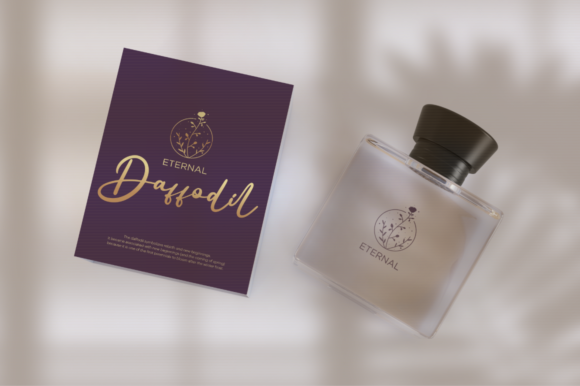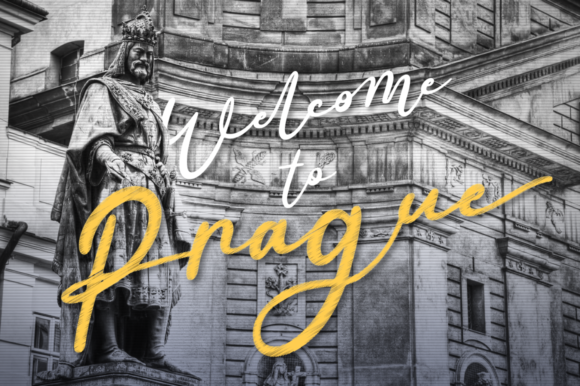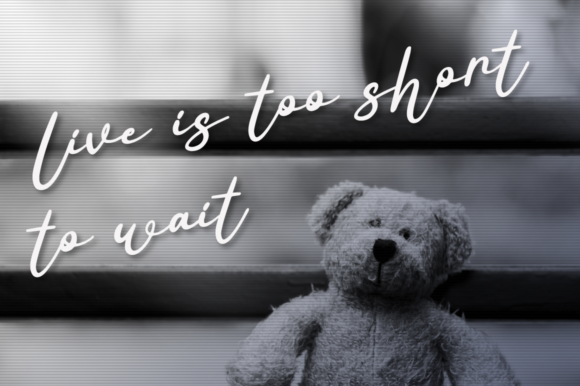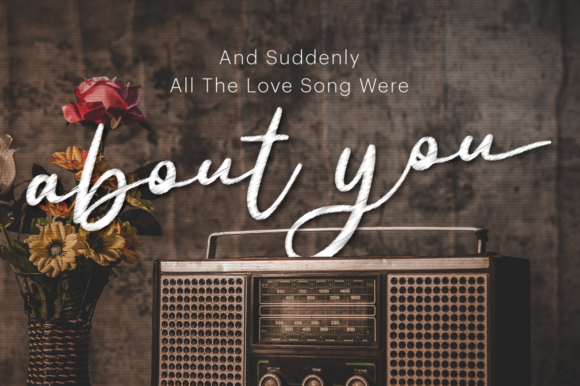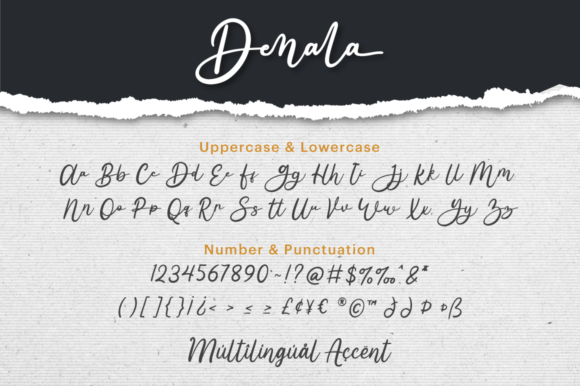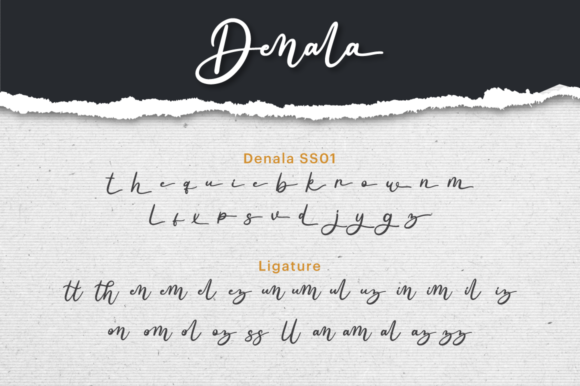
Introduction to Denala Font
Have you ever found yourself staring at a blank canvas, eager to bring a creative project to life, only to be held back by the perfect font? That’s where the Denala Font comes in – a beautiful and refined script font that’s sure to elevate your designs and leave a lasting impression. With its classy, elegant, and modern look, Denala Font is the perfect design resource for any project, from logos and branding to invitations and wedding designs.
Whether you’re a seasoned designer or just starting out, the Denala Font is a valuable addition to your toolkit. Its high-quality design makes it perfect for printing on transparent backgrounds, and with a free download available, you can start using it in your next creative project right away. So why settle for a generic font when you can make a statement with the Denala Font?
Get ready to take your designs to the next level with the Denala Font – a game-changing design resource that’s sure to inspire your next creative project.
Key Features of Denala Font
- High-quality design for creative projects: Denala Font is designed to provide a unique and stylish look for your creative projects, making it an ideal design resource.
- Large character set: Denala Font includes a large character set, including uppercase and lowercase letters, numbers, and punctuation marks.
- Perfect for digital design: With its modern and sleek design, Denala Font is perfect for use in digital design projects, such as website design, social media graphics, and mobile app design.
Honest Review: Denala Font
As a designer, I’m always on the lookout for high-quality fonts that can elevate my creative projects. The Denala Font has caught my attention, and I’m excited to share my honest review with you.
- ✨ The font’s high quality is evident in its crisp lines and smooth texture, making it perfect for printing or digital use.
- ⚠️ The font’s limited character set might not be suitable for complex text-based projects, such as long articles or novels.
- ⚠️ Some users may find the font’s style too generic, which could limit its ability to stand out in a crowded design landscape.
Overall, I’m impressed with the Denala Font, and I think it’s a great addition to any designer’s toolkit. While it may not be perfect, its strengths far outweigh its limitations, making it a valuable design resource for creative projects.
Denala Font
To get the most out of the Denala Font, use it in combination with other design elements to create a cohesive look. Experiment with different font sizes and colors to find the perfect balance for your project. The Denala Font is also perfect for creating quotes or titles for your social media posts.
Common Use Cases for Denala Font